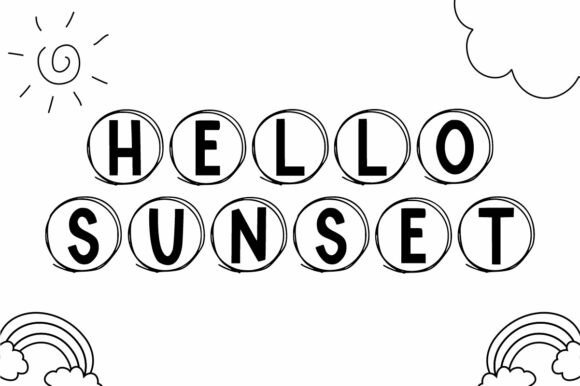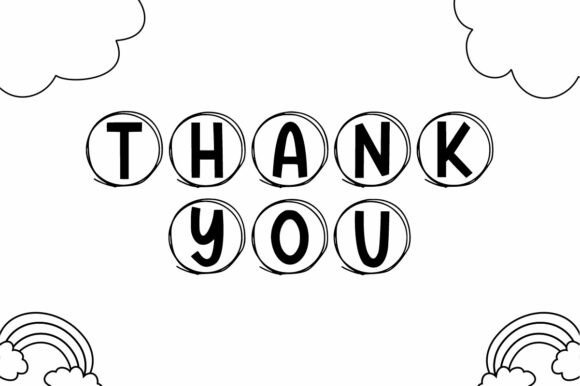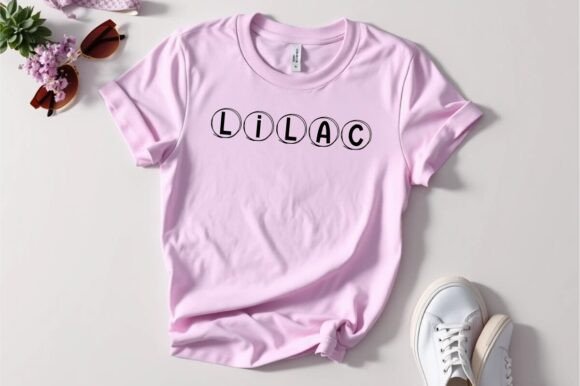
Introduction to Doodle Round Font
Doodle Round is a cute and playful display font that features round-shaped letters that are perfect for adding a fun touch to any project.
Doodle Round is a cute and playful display font that features round-shaped letters that are perfect for adding a fun touch to any project. With its simple yet bold design, this font is sure to catch t
Key Features of Doodle Round Font
Why Choose Doodle Round Font?
Doodle Round Font offers exceptional quality and versatility, making it a valuable addition to your design toolkit. Whether you’re creating for personal projects or commercial use, Doodle Round Font delivers professional results.